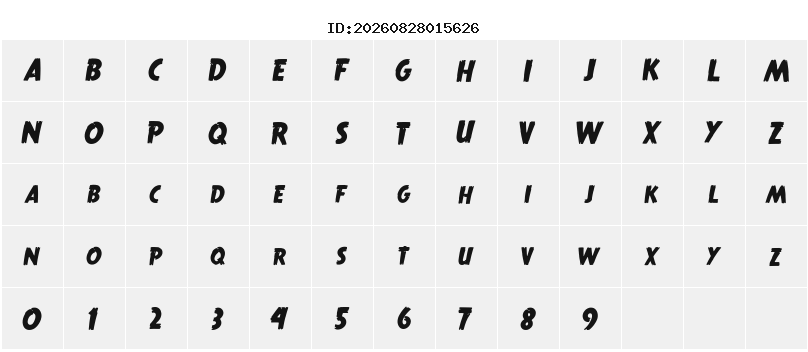
True Crimes Preview
• Font Name: True Crimes
• Full Font Name: True Crimes
• Version: 2002; 1.0, initial release
About True Crimes.ttf
True Crimes.ttf is a modern, elegant sans-serif font designed for ultimate readability and visual harmony. Perfect for branding, headlines, web design, and print materials.